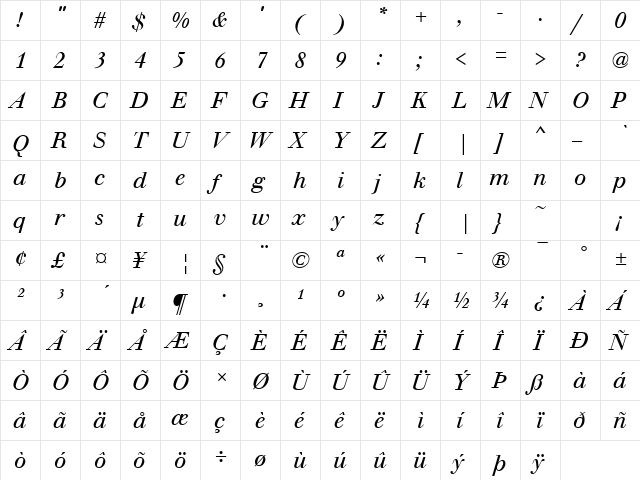
WalbaumBucT Italic
Design Context for WalbaumBucT Typeface
WalbaumBucT is a composed and adaptable typeface that performs quietly and consistently across a wide range of design contexts. The dynamic lean of this cut emphasises speed and emphasis in any layout.